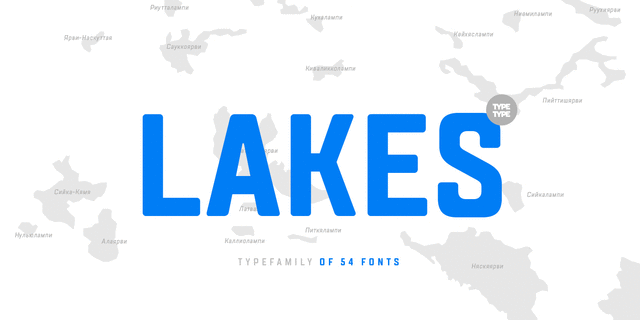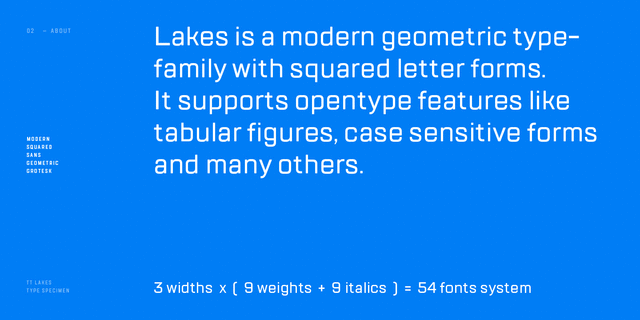
TT Lakes (54 fonts)
The idea for this font emerged in the city of Priosersk, which until World War II was a Finnish city called Käkisalmi. At the city museum we came across an unusual sign plate with the former name of the railway station. We could not look past such a design gem and decided to create a fontfamily that would emphasize the input of Finnish functionalists into the modern design and demonstrate our utter respect towards the land of a thousand lakes, as Finland is often referred to.
TT Lakes is a simple and functional sans-serif that consists of 54 typefaces. TT Lakes contains 3 fontfamilies: Lakes, Lakes Condensed and Lakes Compressed, a universal set of typefaces that fits pretty much any purpose. TT Lakes is like a pair of classic jeans – suits everyone and takes on any challenge. TT Lakes fontfamily supports various OT features: tnum, case, frac, ordn, sups, subs, numr, dnom.
The typeface was designed by Ivan Gladkikh and TypeType team in 2016.